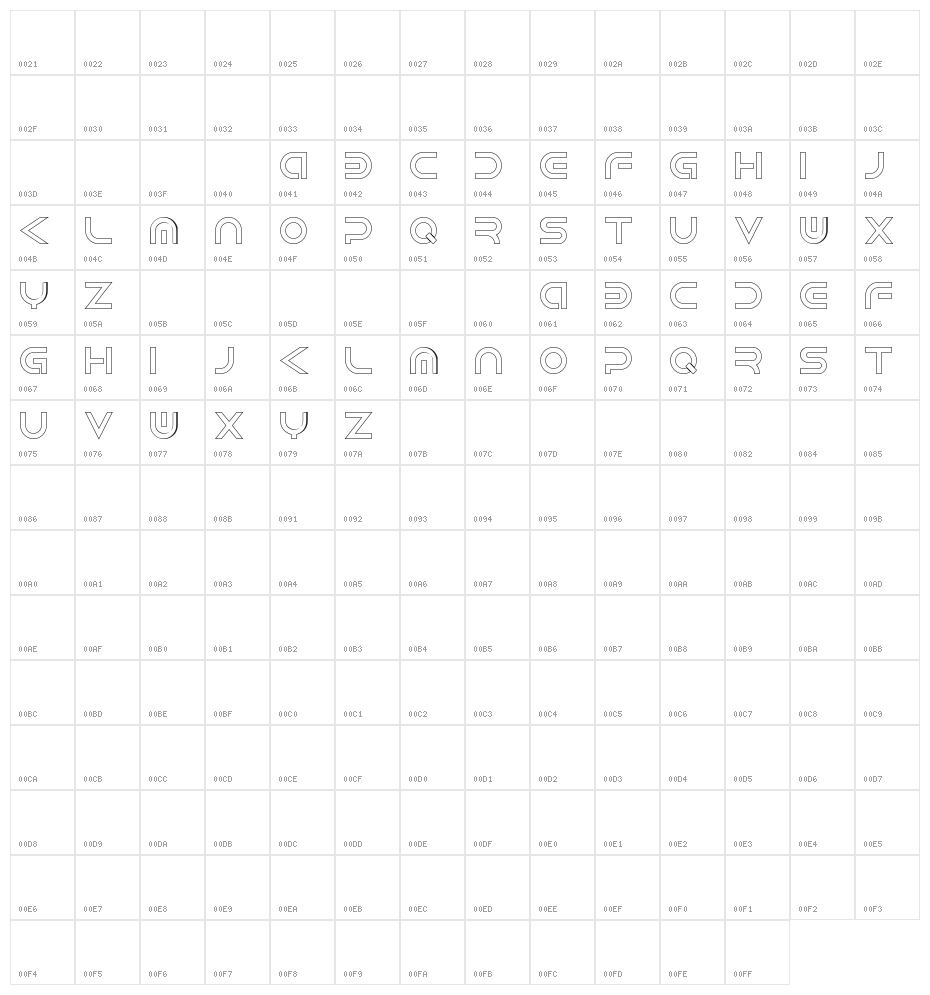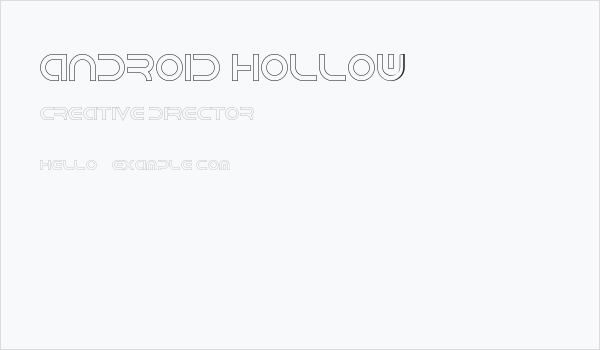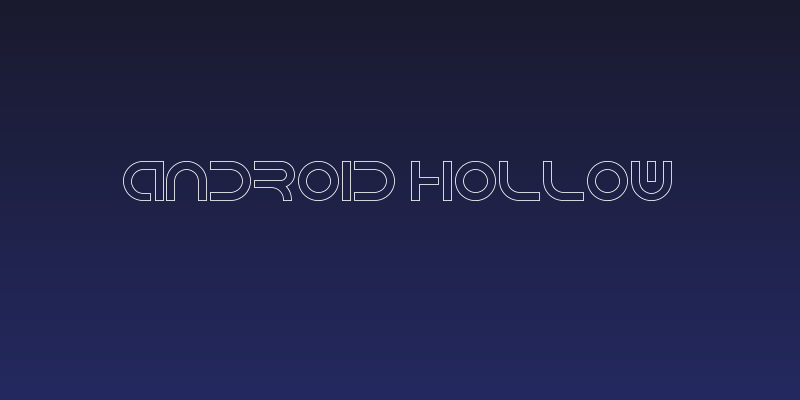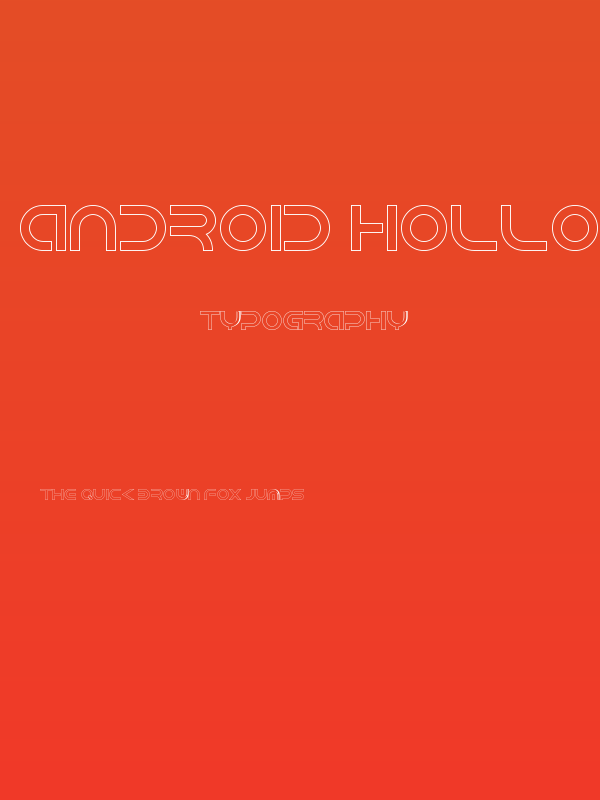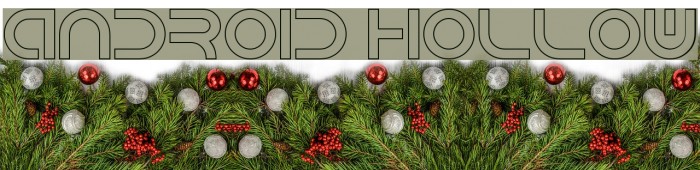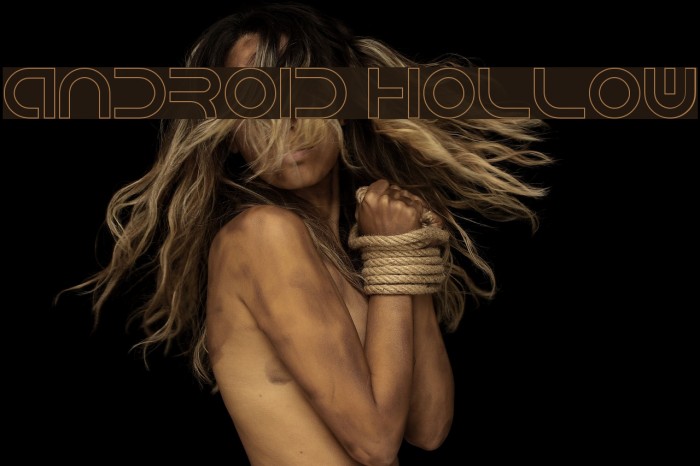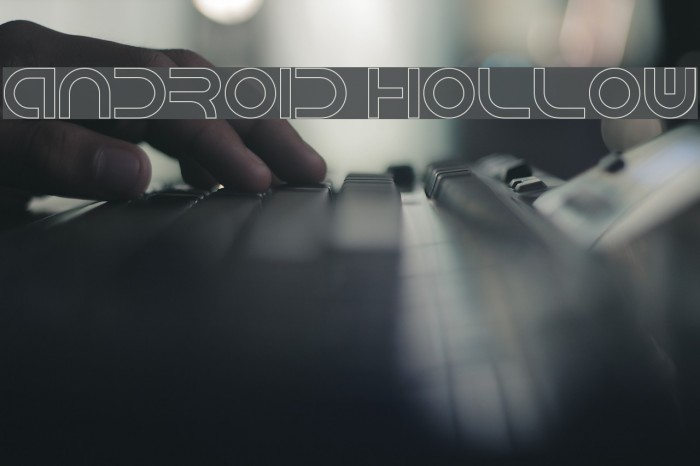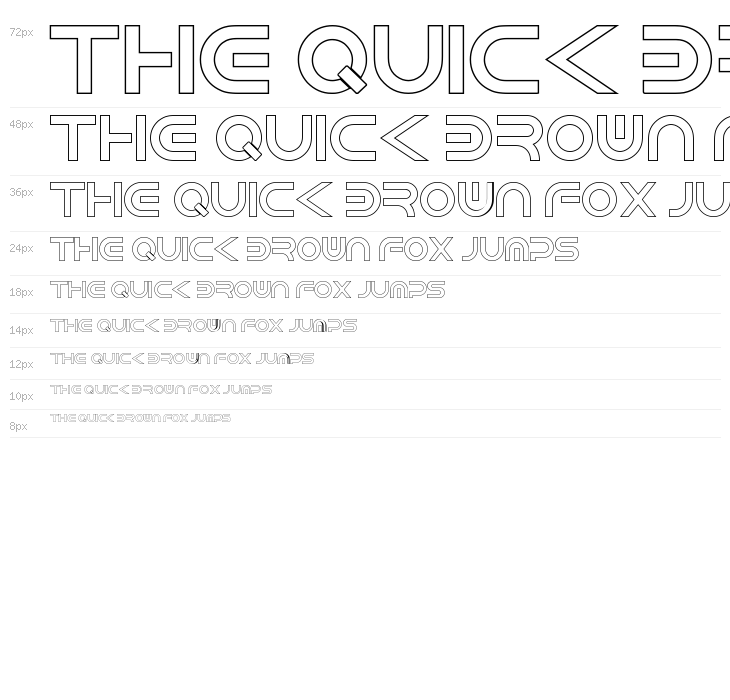
Android Hollow Font
Android Hollow Description
This font features a futuristic and geometric design, characterized by its hollow, outlined letters. Each character is constructed with clean, straight lines and sharp angles, giving it a modern and technological appearance. The uppercase letters are uniform in height, with a consistent stroke width that creates a balanced and cohesive look. The design is minimalistic yet bold, making it suitable for projects that require a contemporary and innovative feel. The font's unique style is achieved through its open, unfilled letterforms, which add a sense of lightness and space.
| Proposed Projects | Ideal for tech-related branding, sci-fi themed designs, digital interfaces, and modern advertising. |